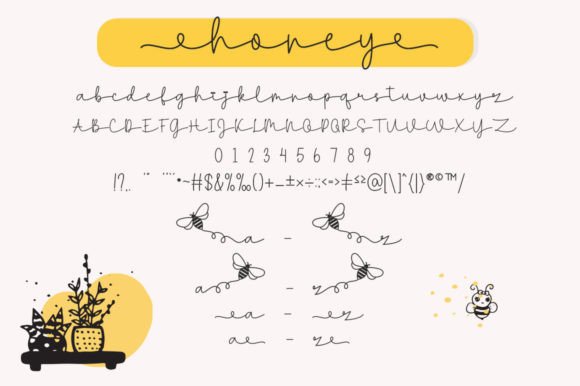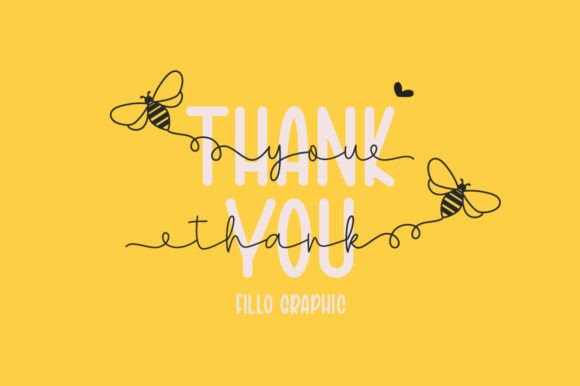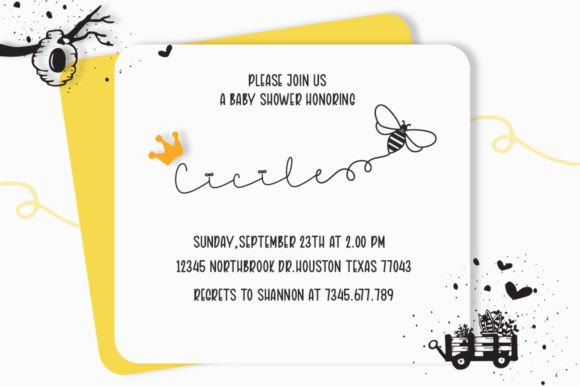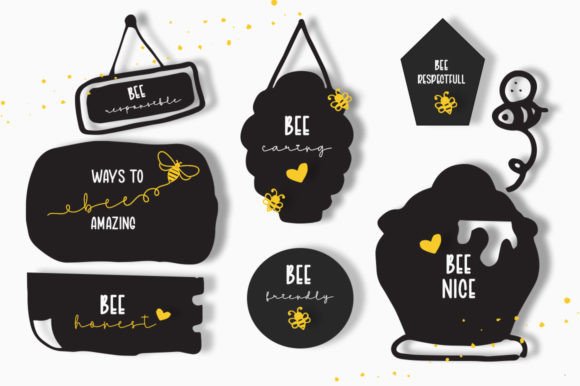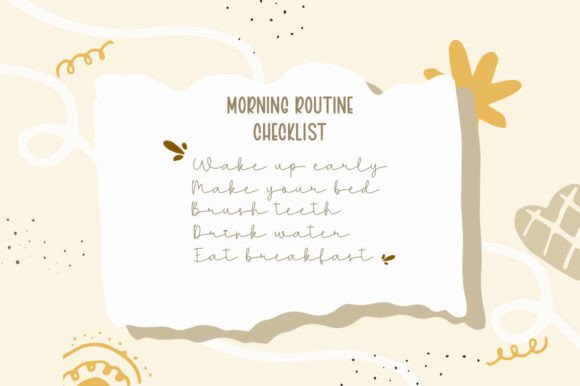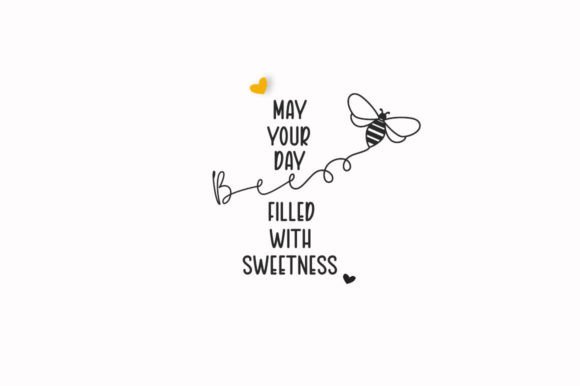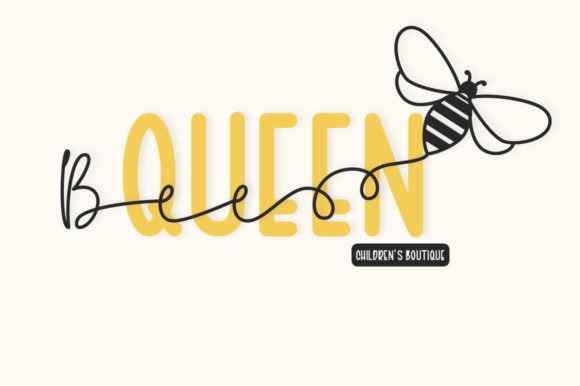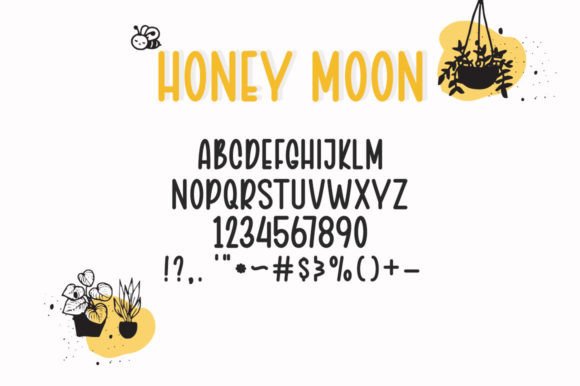
Honey Moon Font
About Honey Moon Font
Honey Moon consists of two handwritten fonts designed to complement each other perfectly. Together or apart, these fonts are ideal for adding a chic and cheery touch to your crafts. Honey Moon is PUA encoded which means you can access all glyphs and swashes with ease!